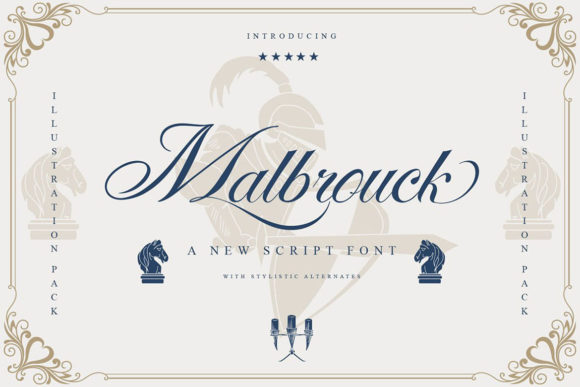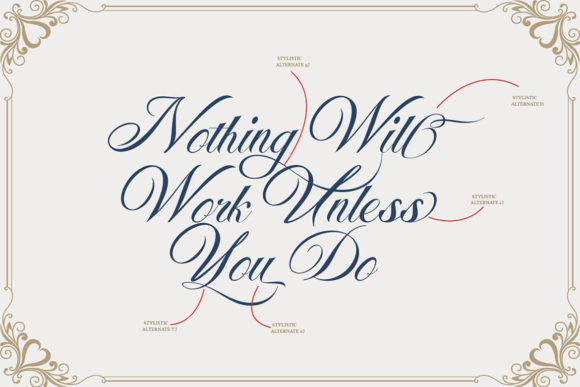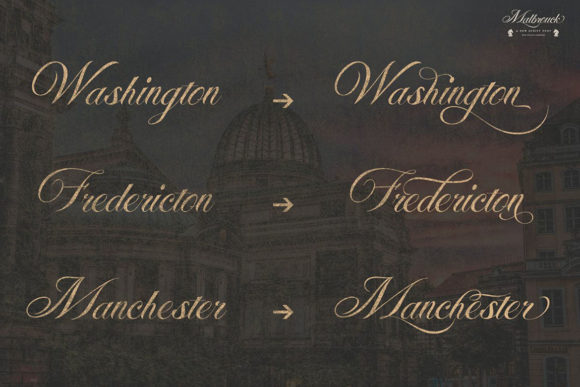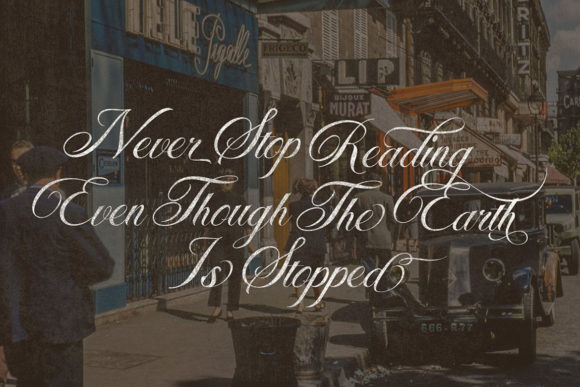
Malbrouck Font: Elegant Calligraphy Script for Wedding & Logo Design
About the Malbrouck Font
Step up your design game with Malbrouck Font, a font that exudes confidence and style. Malbrouck is a magical script font carefully created with a touch of elegance. This is a beautiful combination of timeless elegance and authentic calligraphy. It features smooth lines, gorgeous glyphs and stunning alternates and it brings amazing illustration that will look great in your crafting projects!
Malbrouck excels in applications requiring a touch of refined elegance, such as logos, short headlines, invitations, or packaging design where its graceful curves and illustrative quality shine. It is less suitable for extended body text or UI elements, where readability over extended lengths suffers.
Its inherent elegance pairs well with clean sans-serif fonts like Montserrat or Lato for a balanced contrast, or with a geometric sans-serif like Futura for a more modern feel. A subtle serif like Garamond could also complement its script nature, providing a classic yet contemporary pairing.
Malbrouck projects a sophisticated, yet approachable personality. Its charm lies in its balance of classic elegance and a hand-drawn feel, making it ideal for brands emphasizing quality, craftsmanship, or a touch of vintage flair.
Malbrouck Font Usage Examples
Malbrouck Font Example